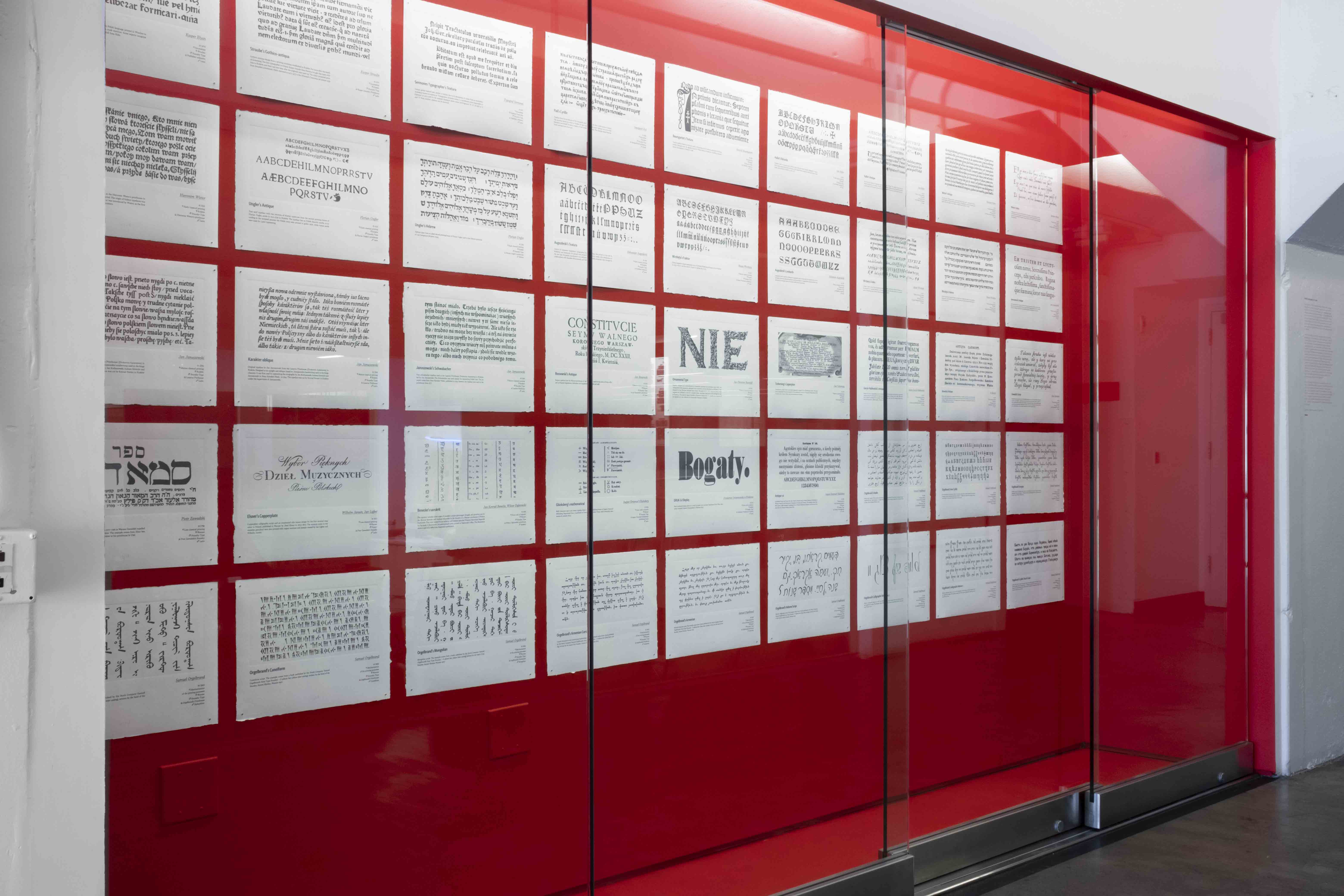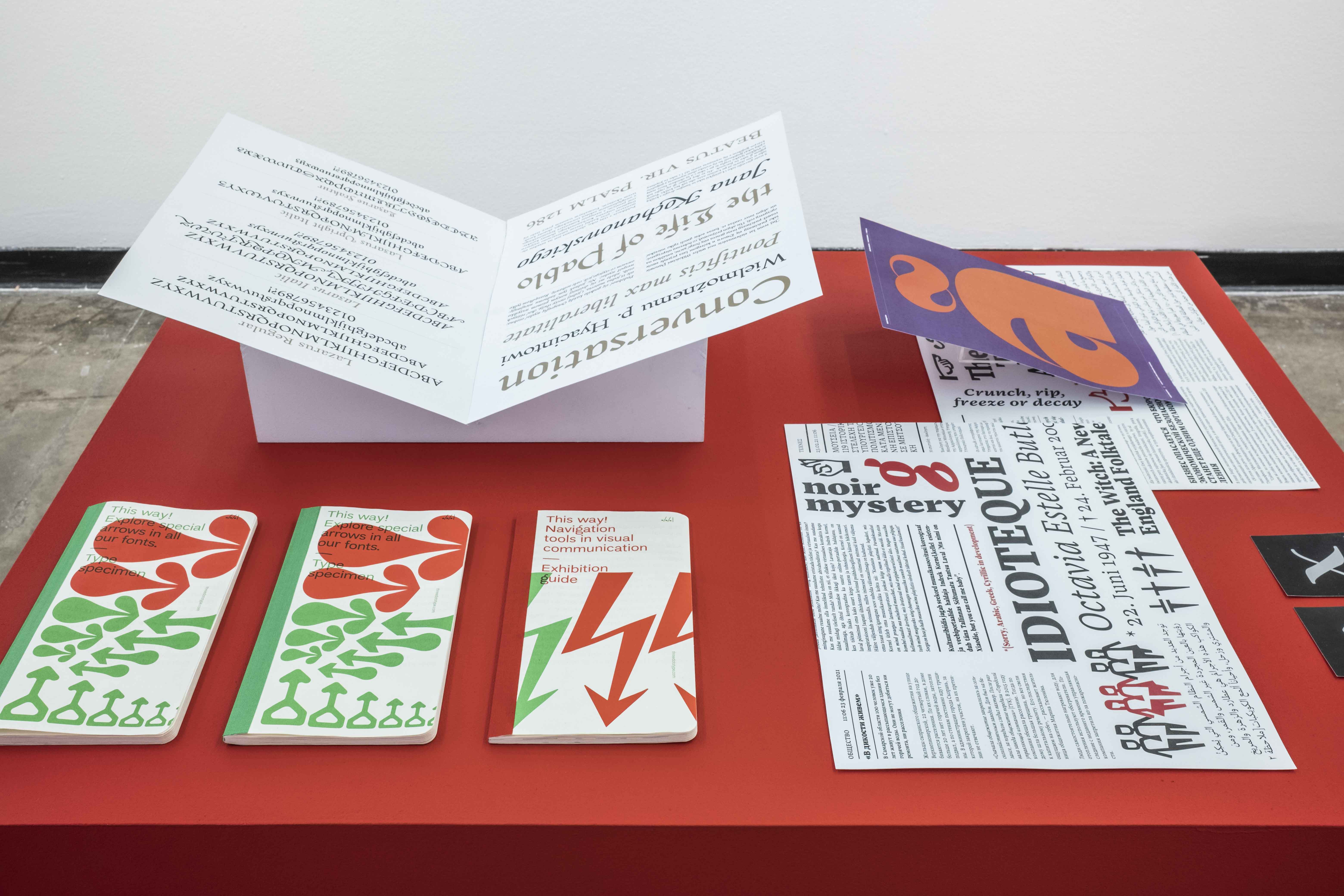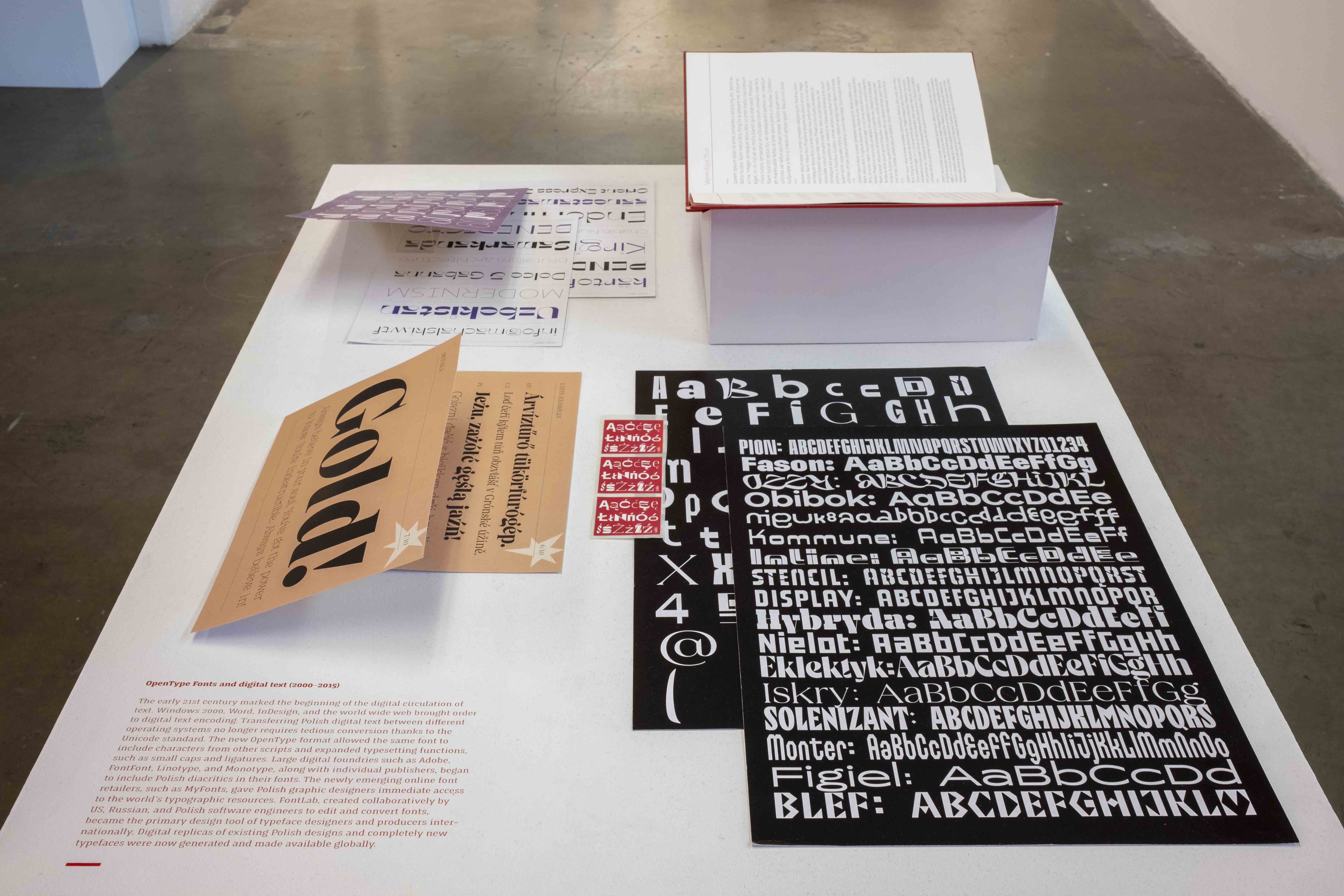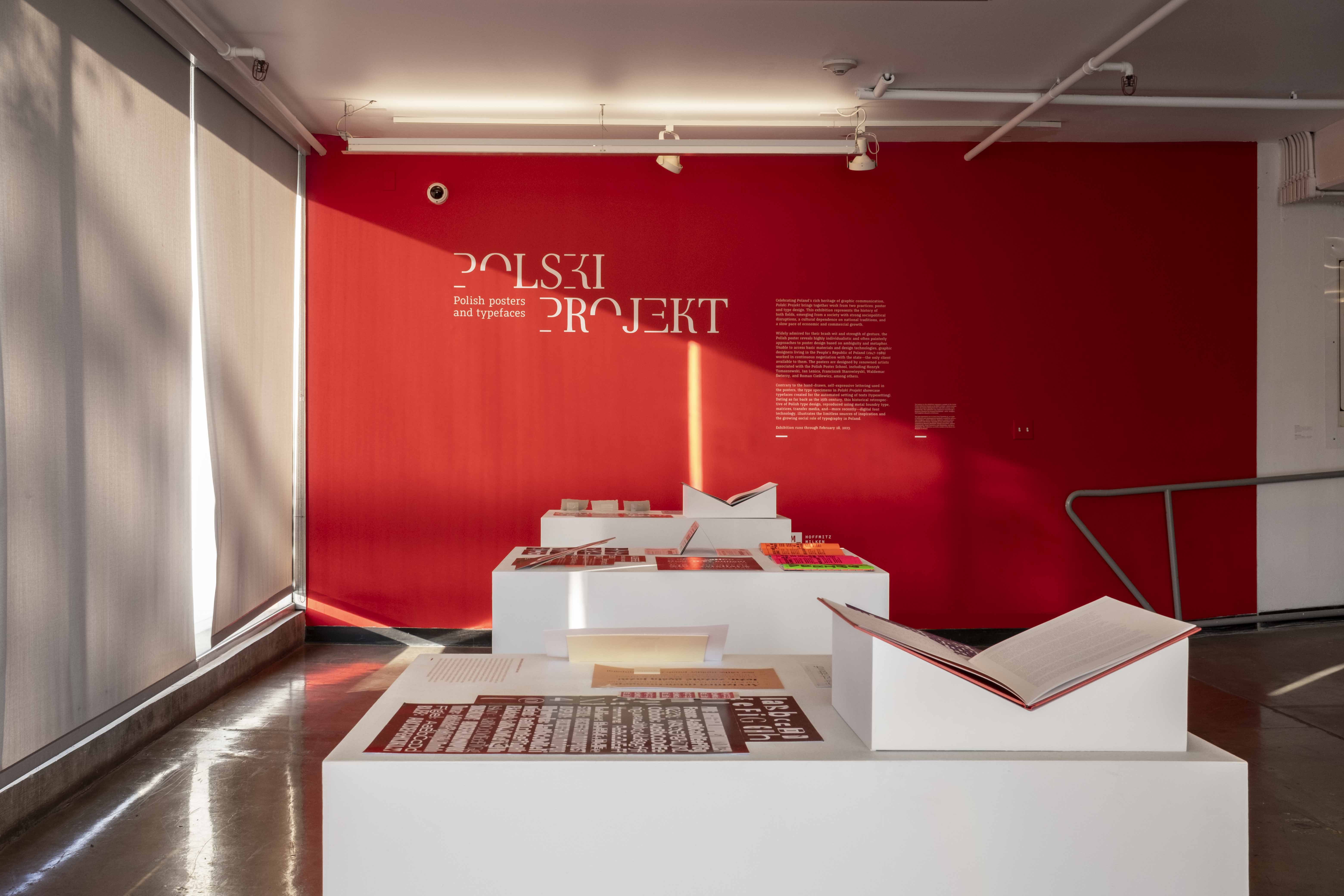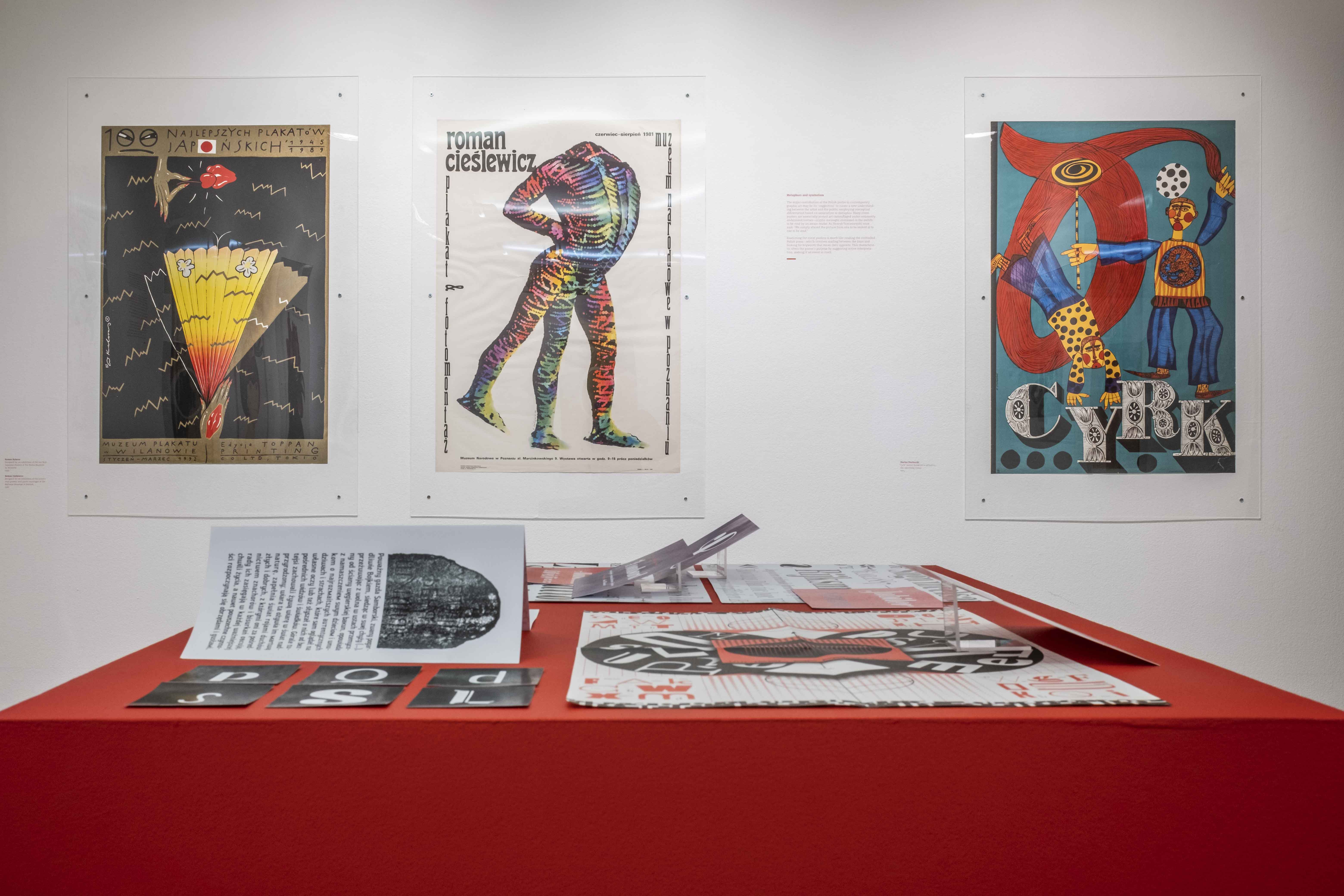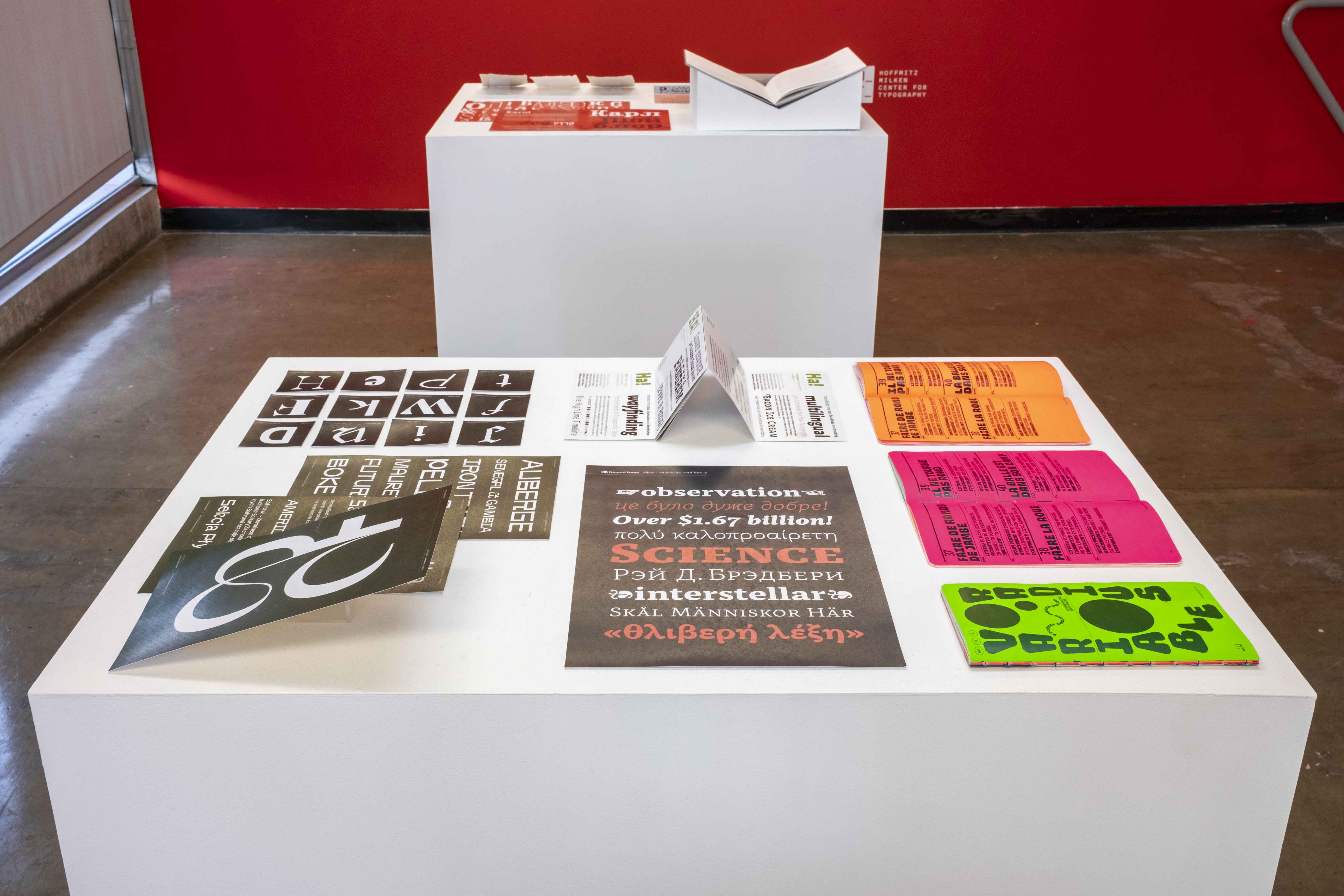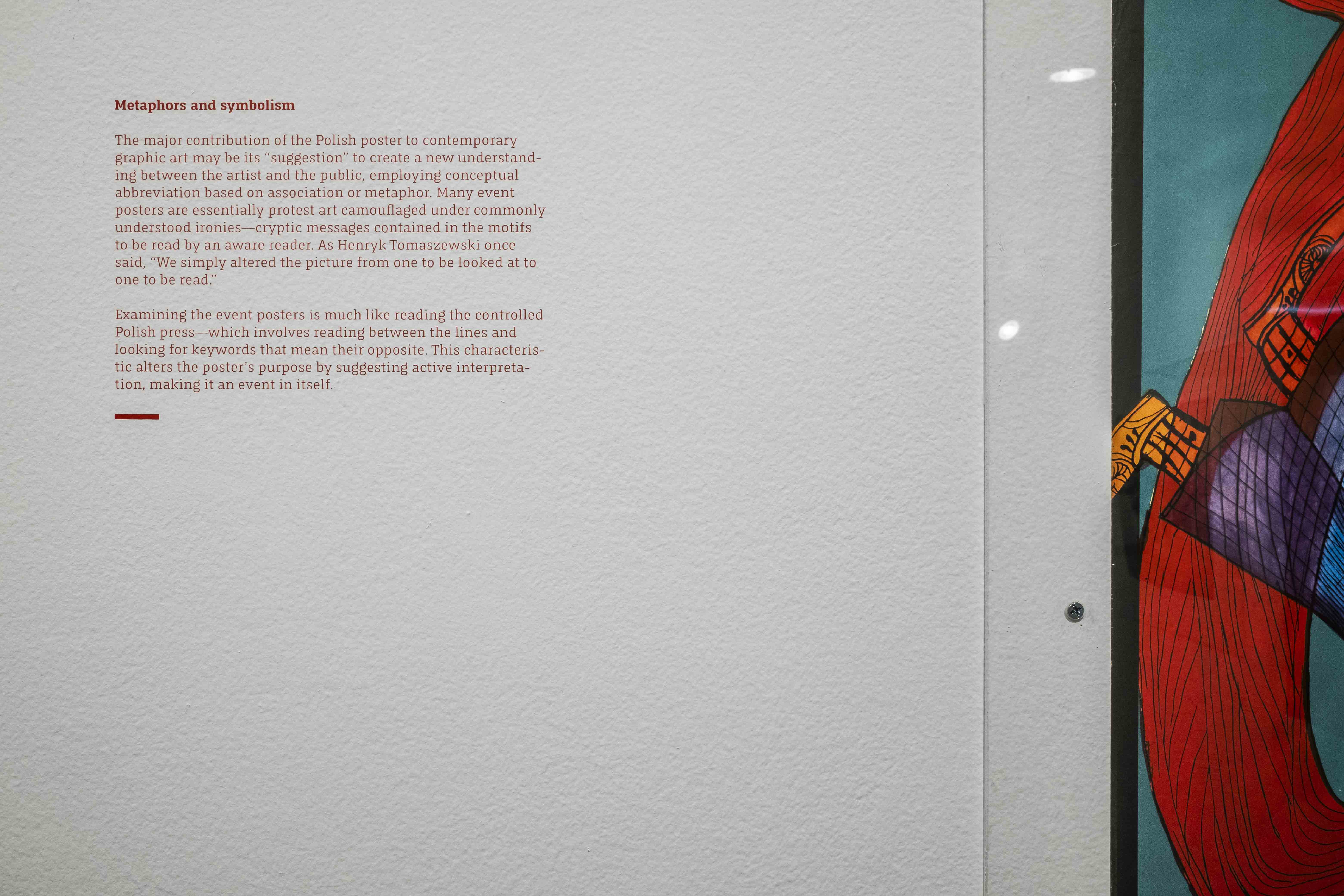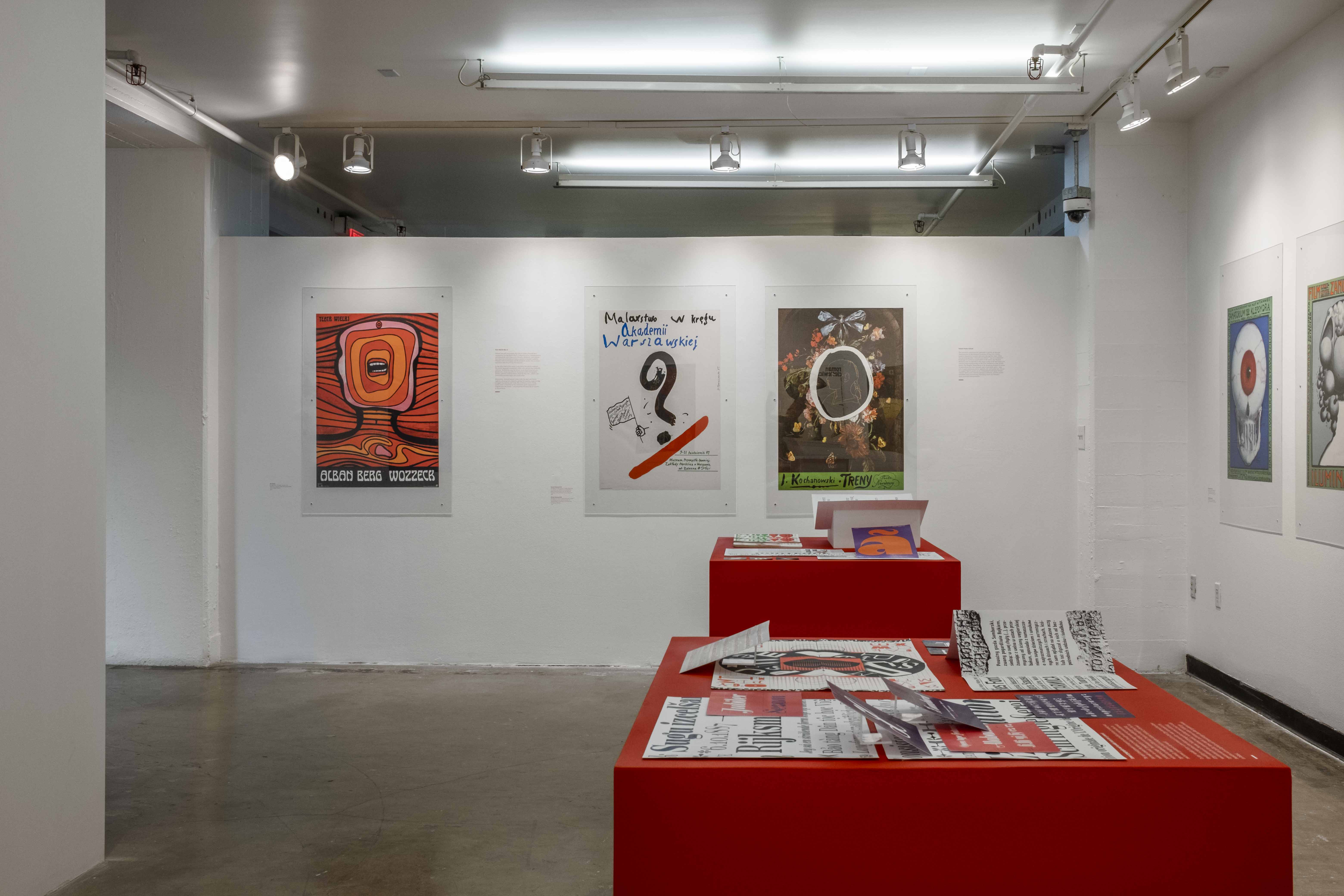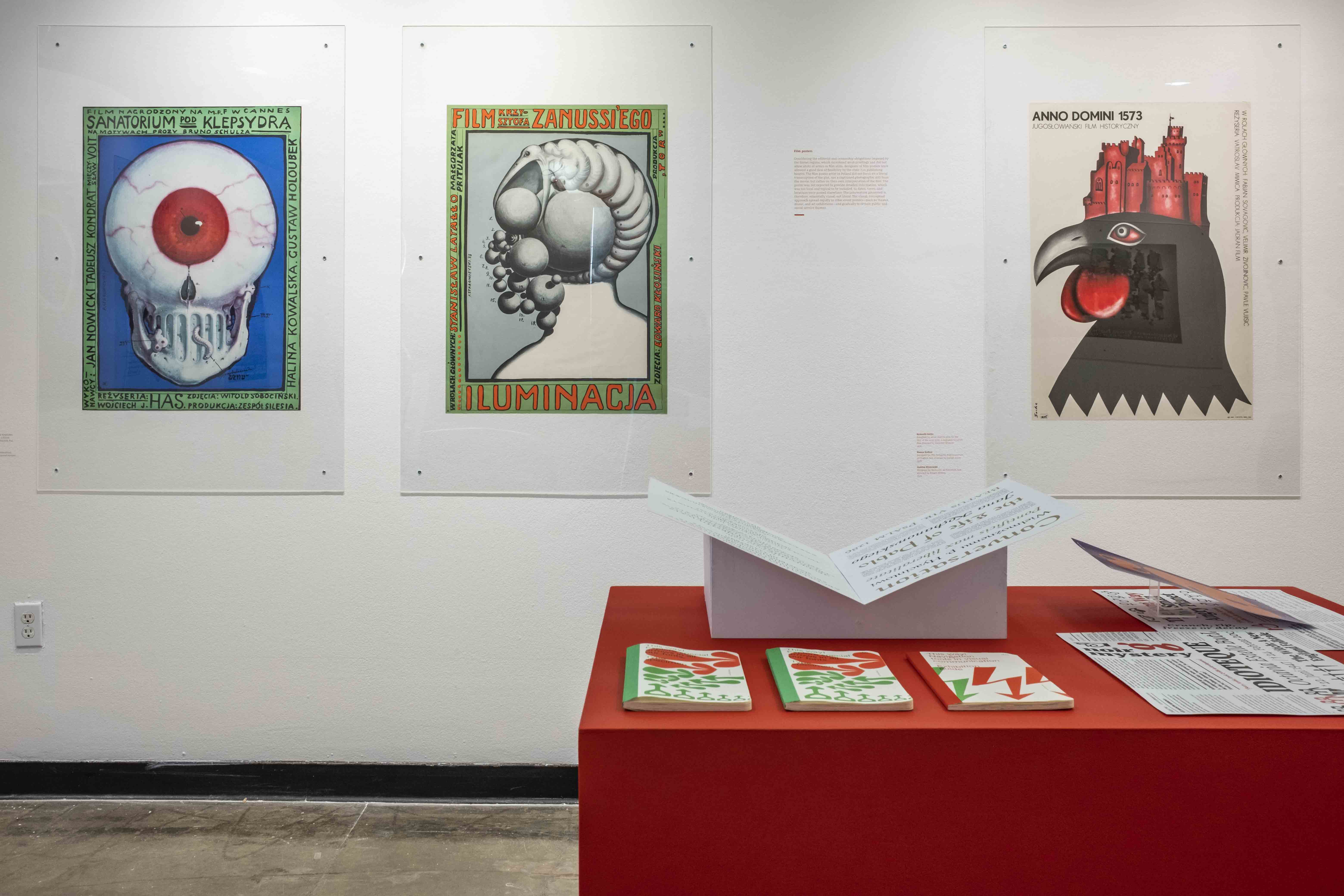
Polski Projekt: ​Polish Posters and Typefaces
exhibition display
Celebrating Poland’s rich heritage of graphic communication, Polski Projekt brought together work from two practices: poster and type design. The exhibition represented the history of both fields emerging from a society with strong sociopolitical disruptions, a cultural dependence on national traditions, and a slow pace of economic and commercial growth.
Widely admired for their brash wit and strength of gesture, the Polish poster reveals highly individualistic and often painterly approaches to poster design based on ambiguity and metaphor. Unable to access basic materials and design technologies, graphic designers living in the People’s Republic of Poland (1947–1989) worked in continuous negotiation with the state—the only client available to them. The posters in the exhibition, designed by renowned artists associated with the Polish Poster School, include works by Henryk Tomaszewski, Franciszek Starowieyski, Jan Lenica, Roman Cieślewicz, and Waldemar Świerzy, among others.
Contrary to the hand-drawn, self-expressive lettering used in the posters, the type specimens in Polski Projekt showcased typefaces created for the automated setting of texts (typesetting). Dating as far back as the 15th century, this retrospective of Polish type design, reproduced using metal foundry type, matrices, transfer media, and, more recently, digital font technology, illustrates the limitless sources of inspiration and the growing social role of typography in Poland.
The works in the exhibition represented a sample of the Polish Poster Collection housed at HMCT’s Archive, which includes over 400 posters dating from the mid-20th century to the present day. These posters were acquired in 2019 through a generous donation by Leonard Konopelski—artist, designer, and longtime educator at ArtCenter.
The type specimens were on loan from Typoteka.pl, an index of historical and contemporary typefaces created by authors—type designers, artists, letterers, engravers, and punch-cutters—associated with Poland. Typoteka.pl was researched and compiled by Mateusz Machalski, Michał Jarociński, Andrzej Tomaszewski, Adam Twardoch, Ania Wieluńska, and Borys Kosmynka. The collection currently resides at the Book Arts Museum in Poland.